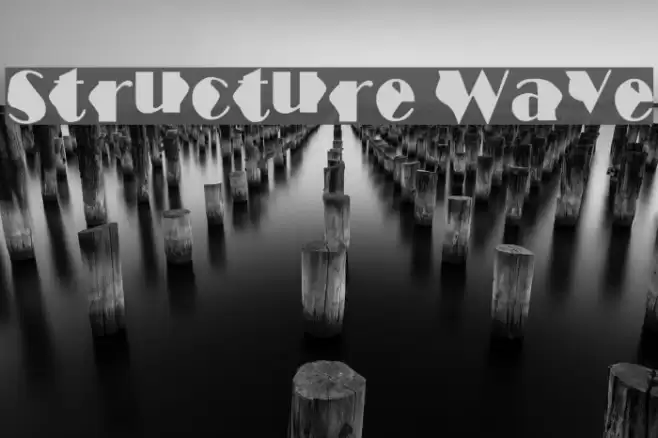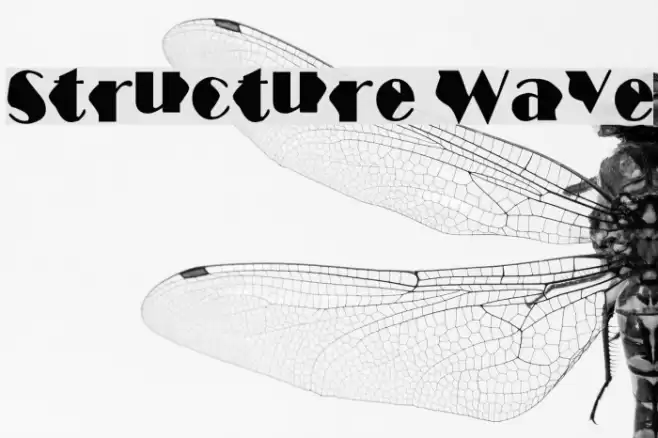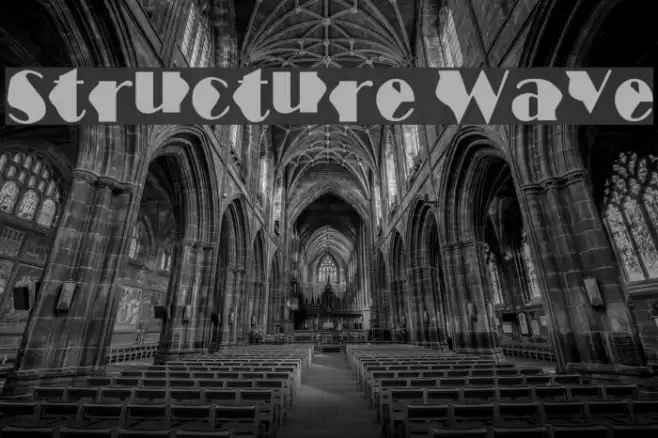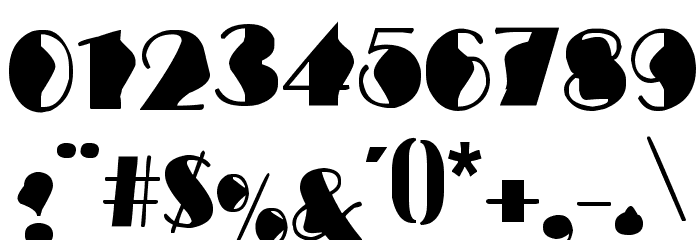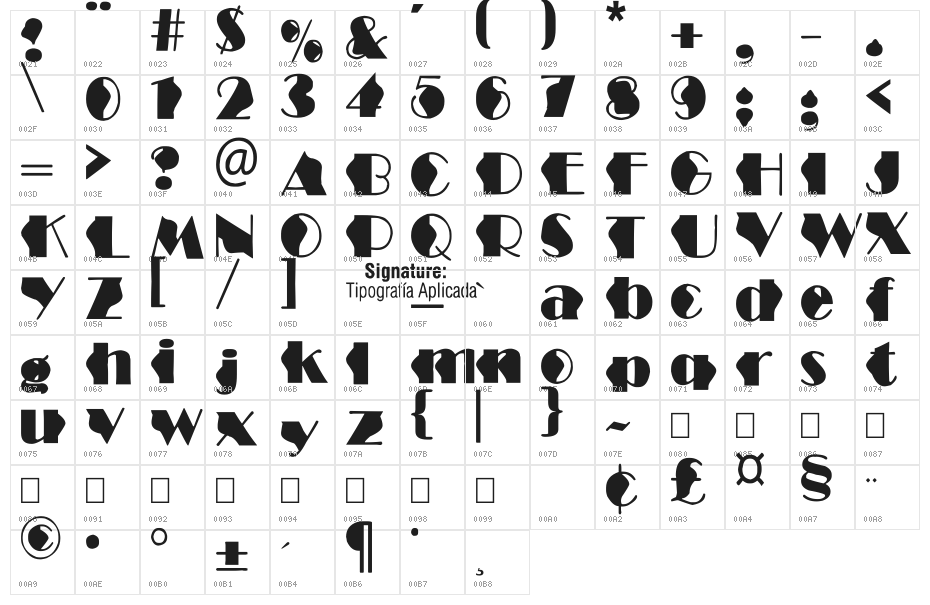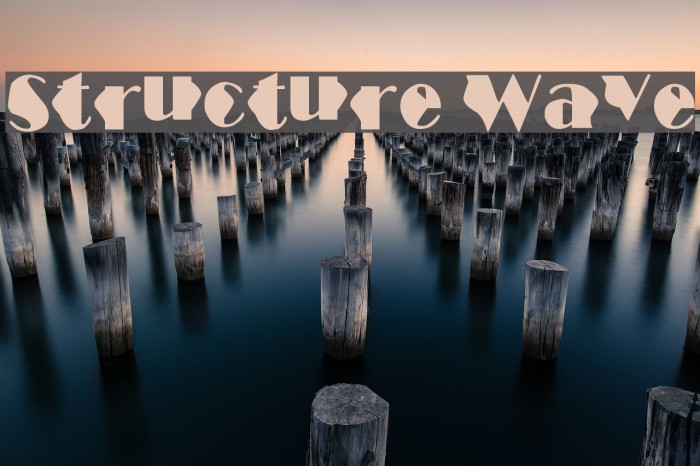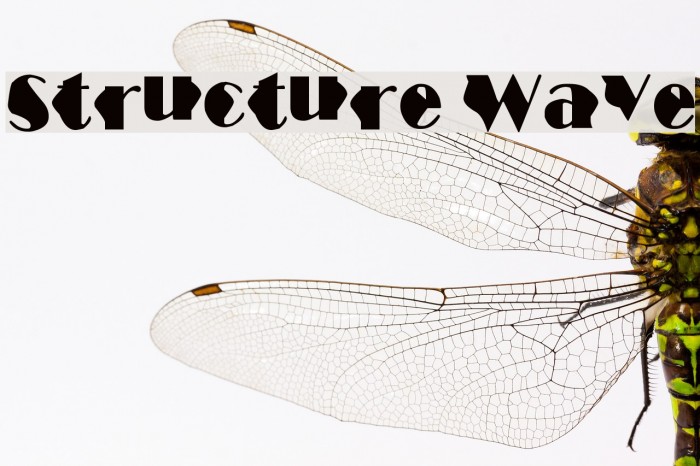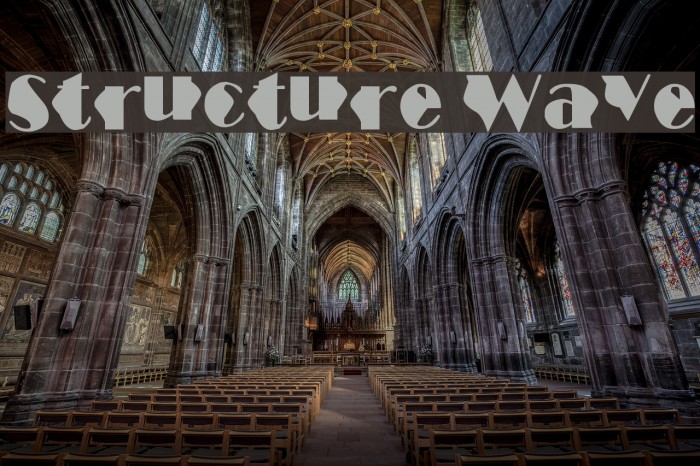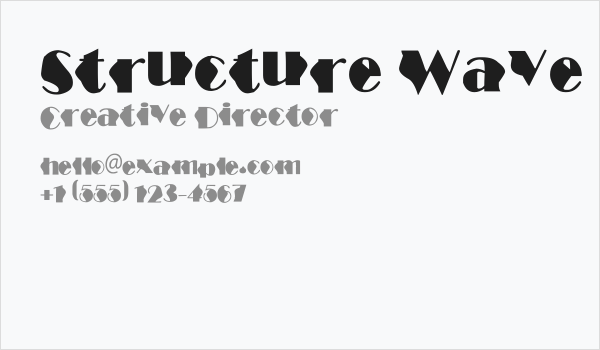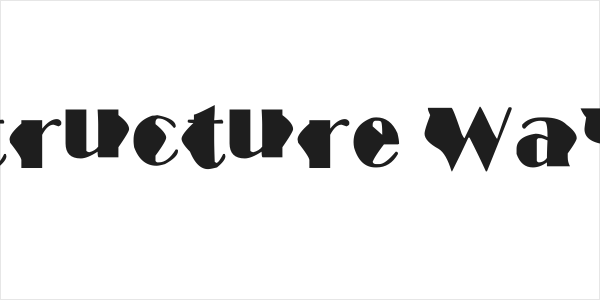
Structure Wave Font
Structure Wave Description
This font features a bold and striking design with a modern, geometric aesthetic. The characters are constructed with sharp angles and unique cutouts, creating a dynamic and eye-catching appearance. The uppercase letters are particularly distinctive, with a mix of solid and hollow forms that add depth and interest. The lowercase letters maintain the boldness of the uppercase, with some characters incorporating subtle curves. Numbers and special characters follow the same bold and geometric style, ensuring consistency throughout. This font is ideal for projects that require a strong visual impact.
A bold, geometric font with sharp angles and unique cutouts from Uncategorized fonts.
- Proposed Projects: Ideal for branding, posters, headlines, and any design needing a bold statement.